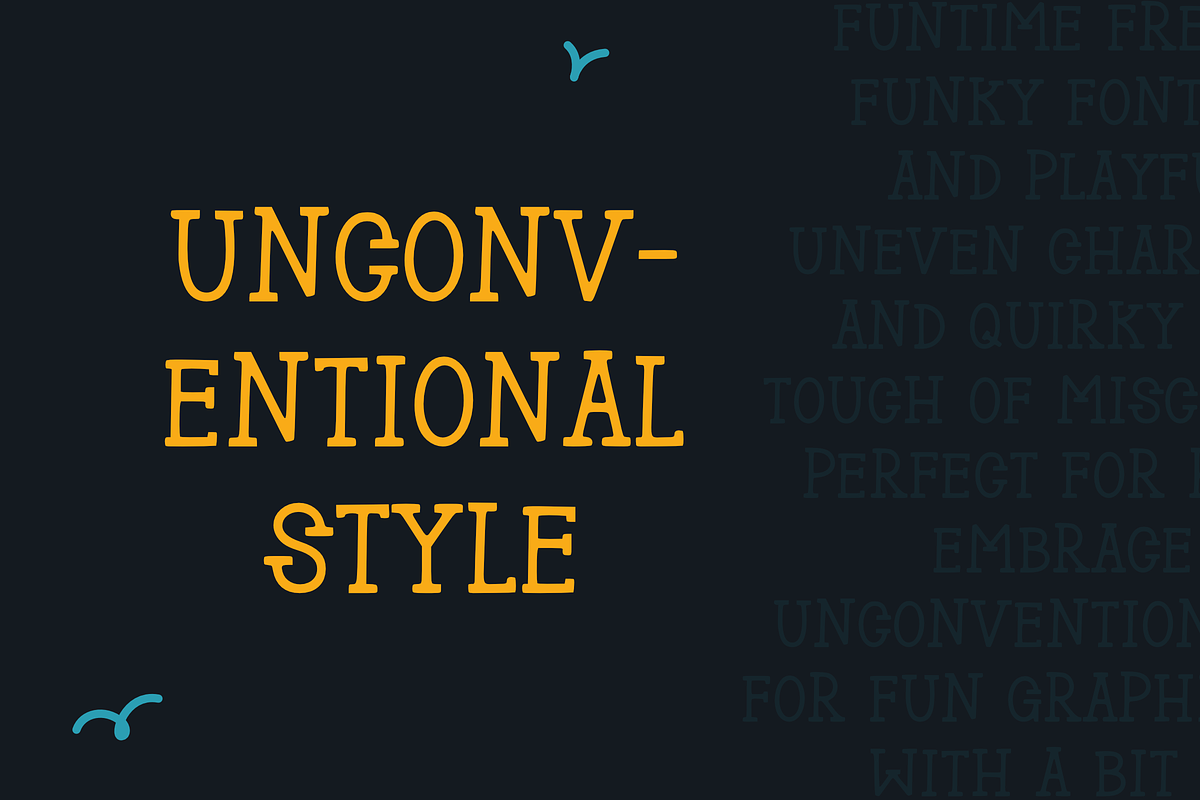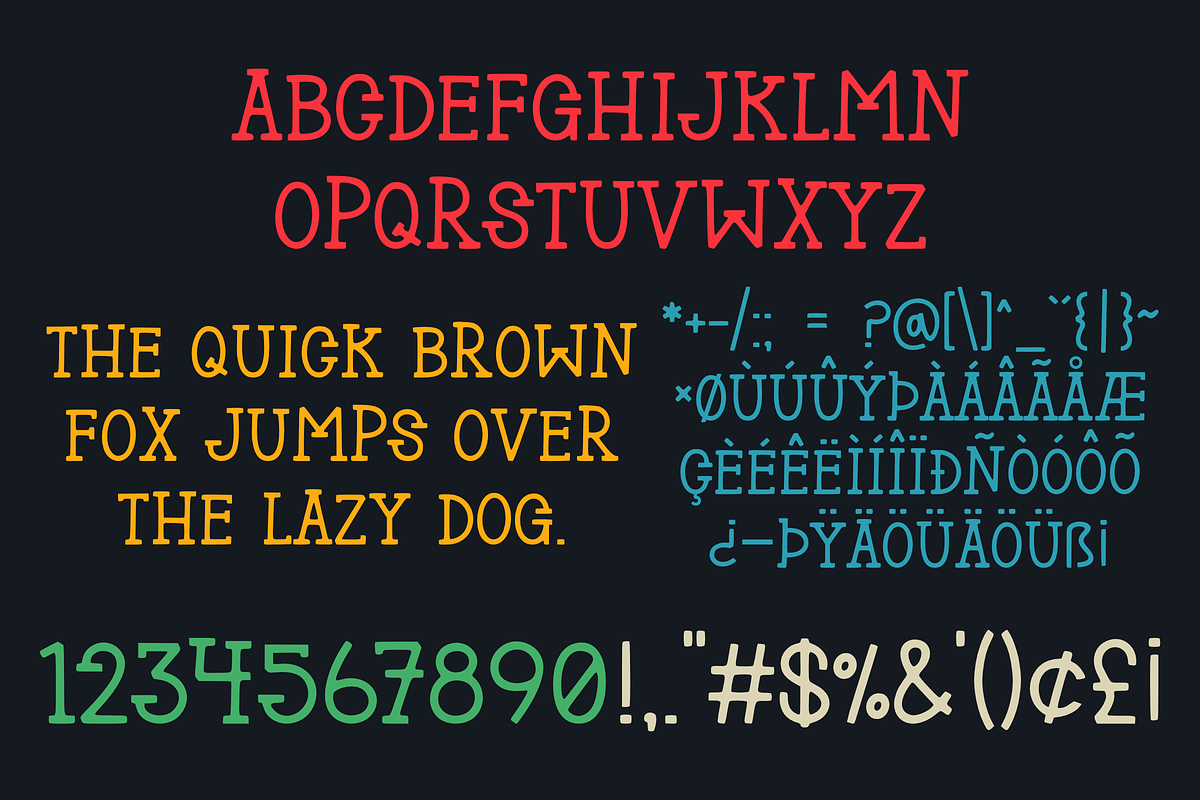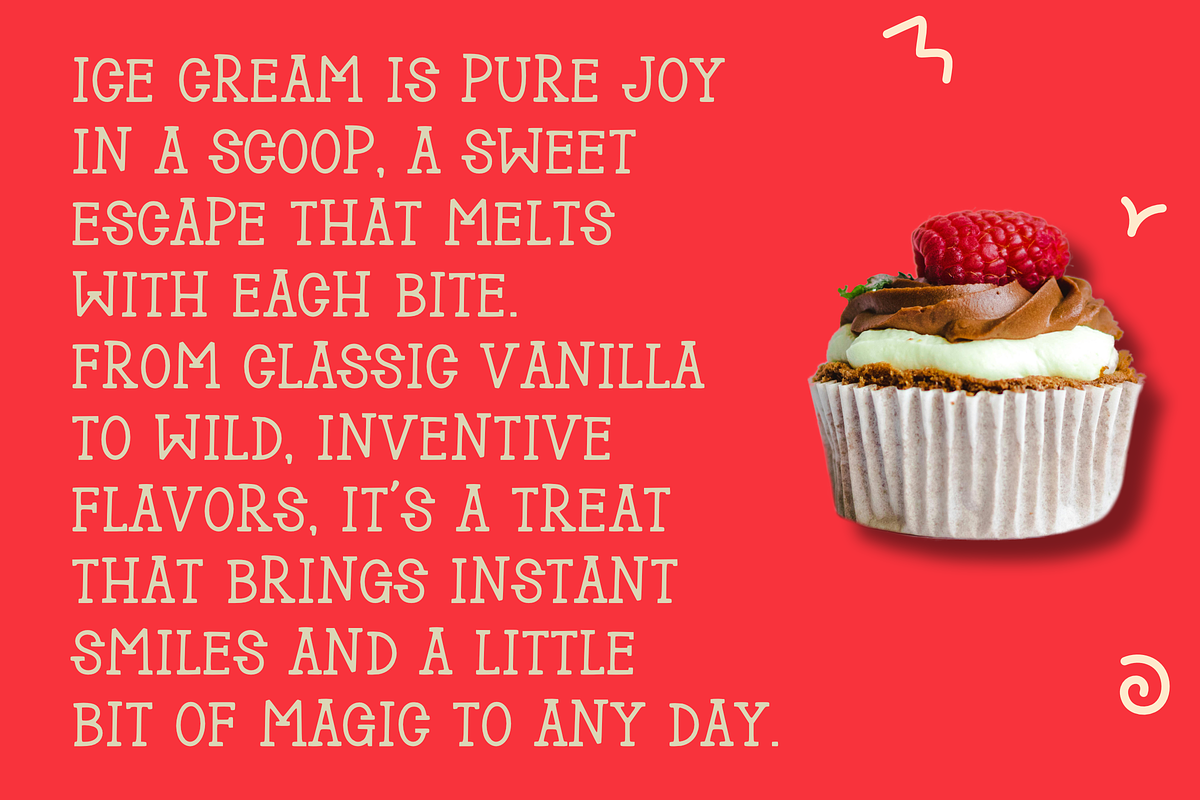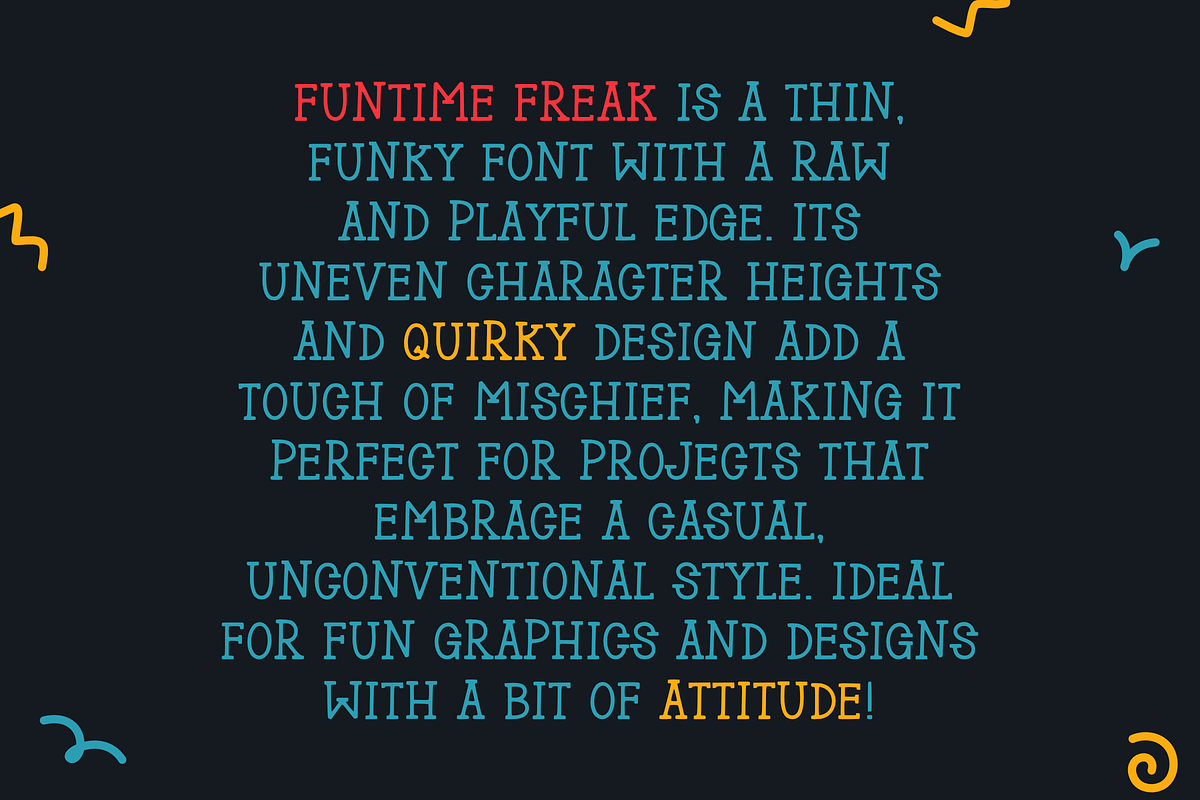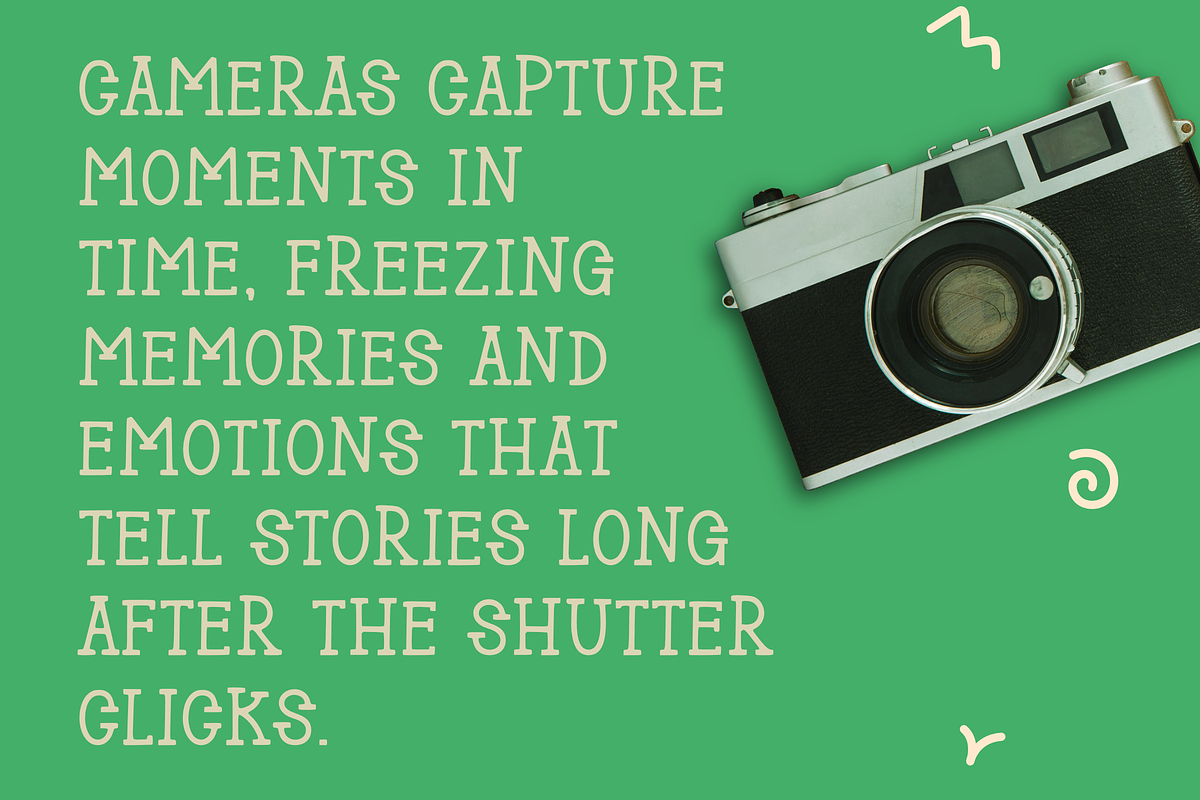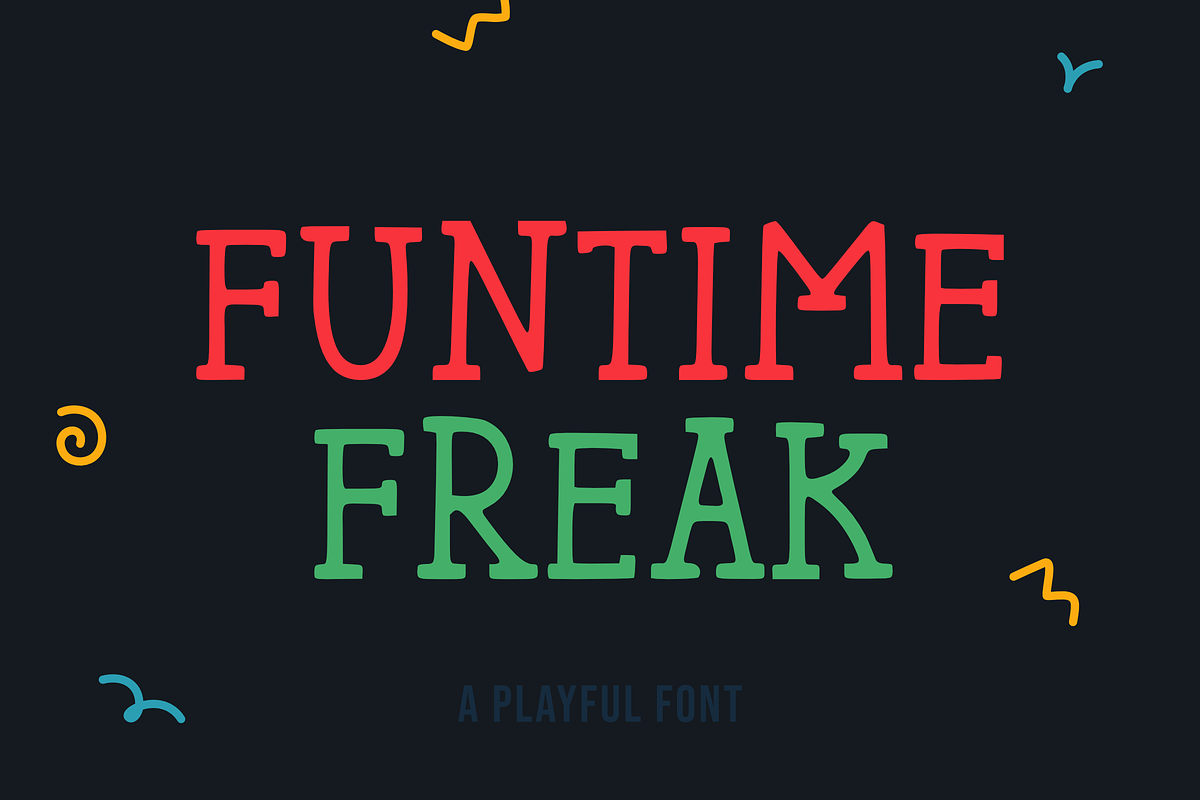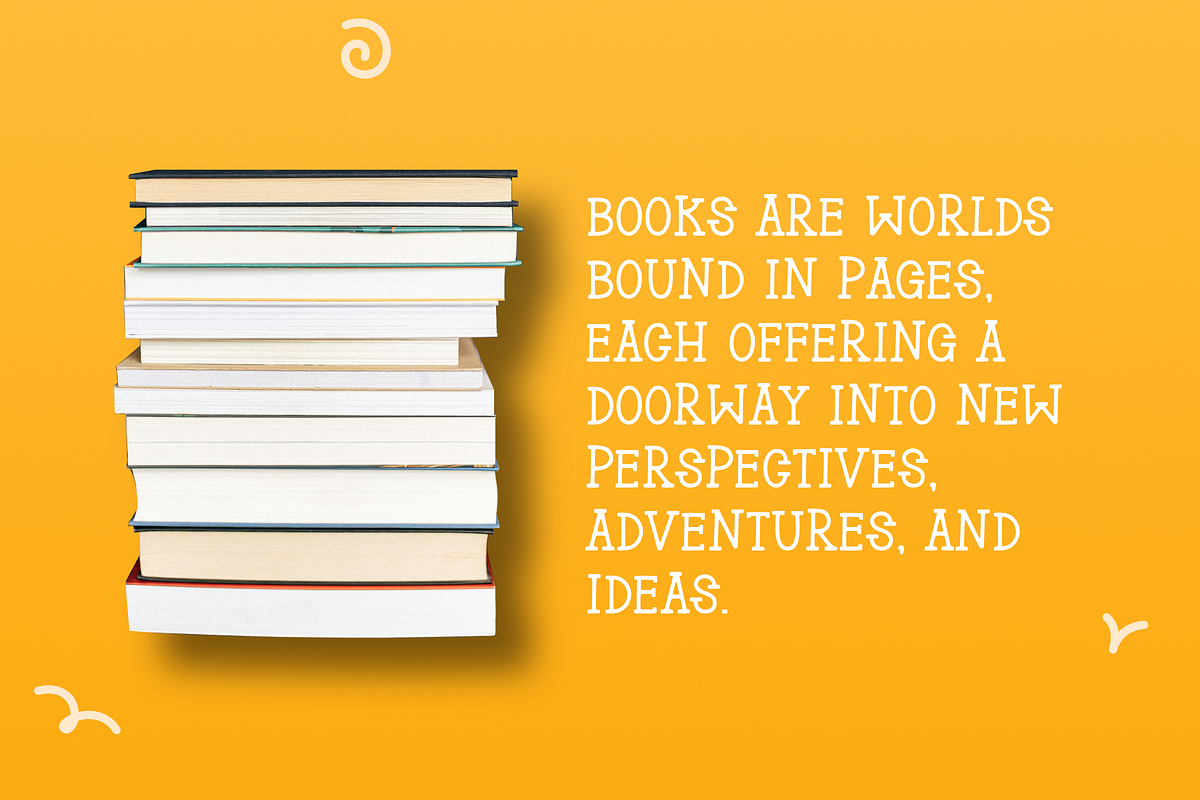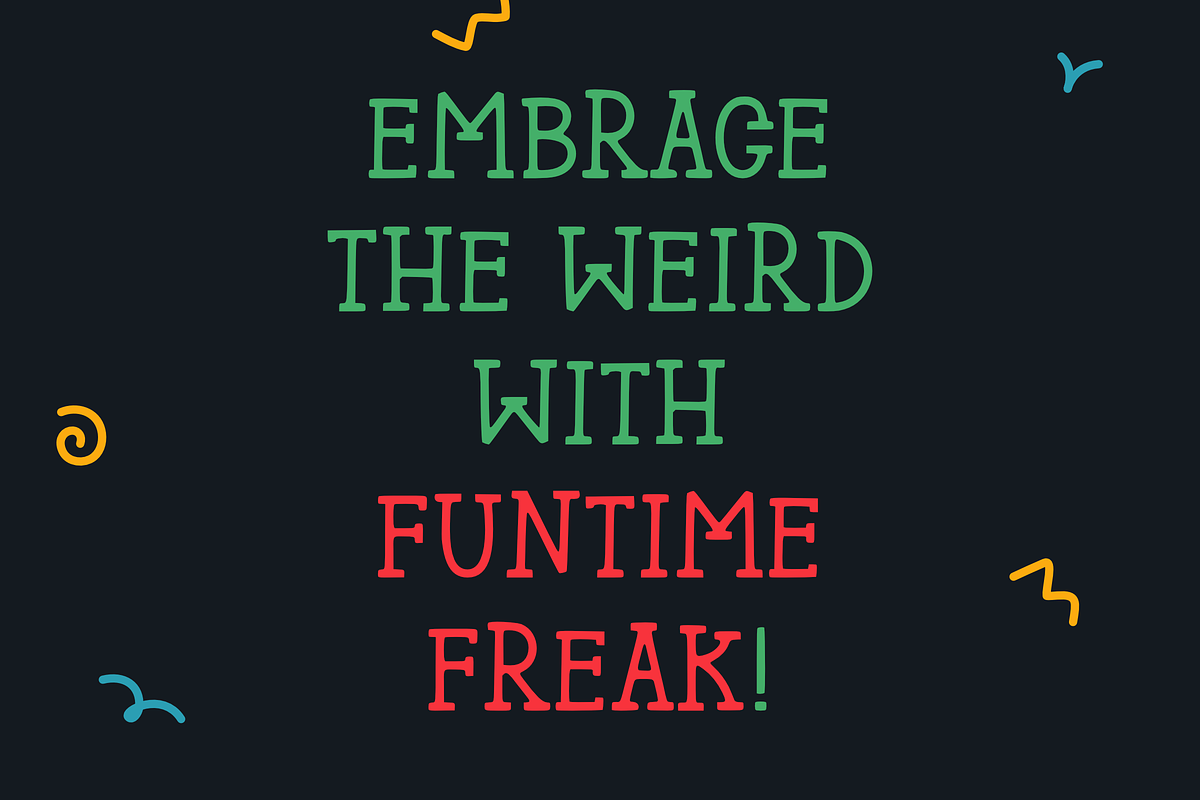
Funtime Freak
Funtime Freak is a thin, funky font with a raw and playful edge. Its uneven character heights and quirky design add a touch of mischief, making it perfect for projects that embrace a casual, unconventional style. Ideal for fun graphics and designs with a bit of attitude!